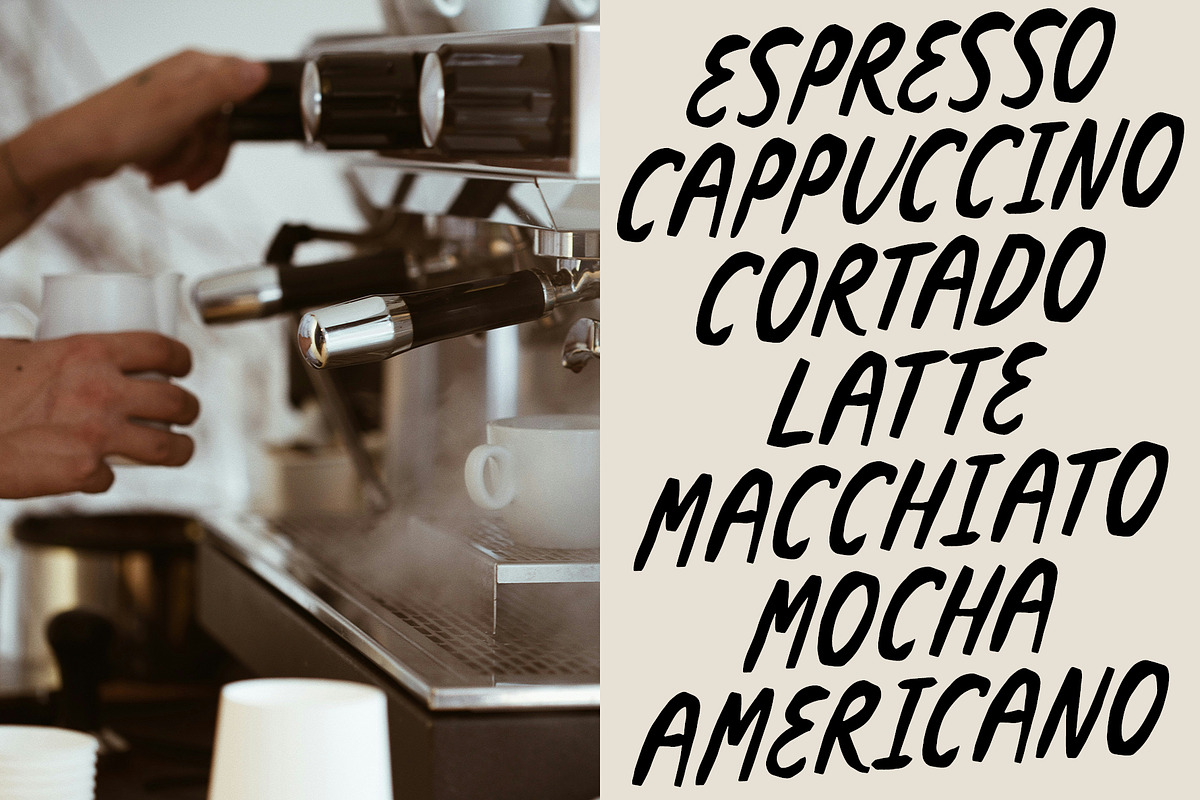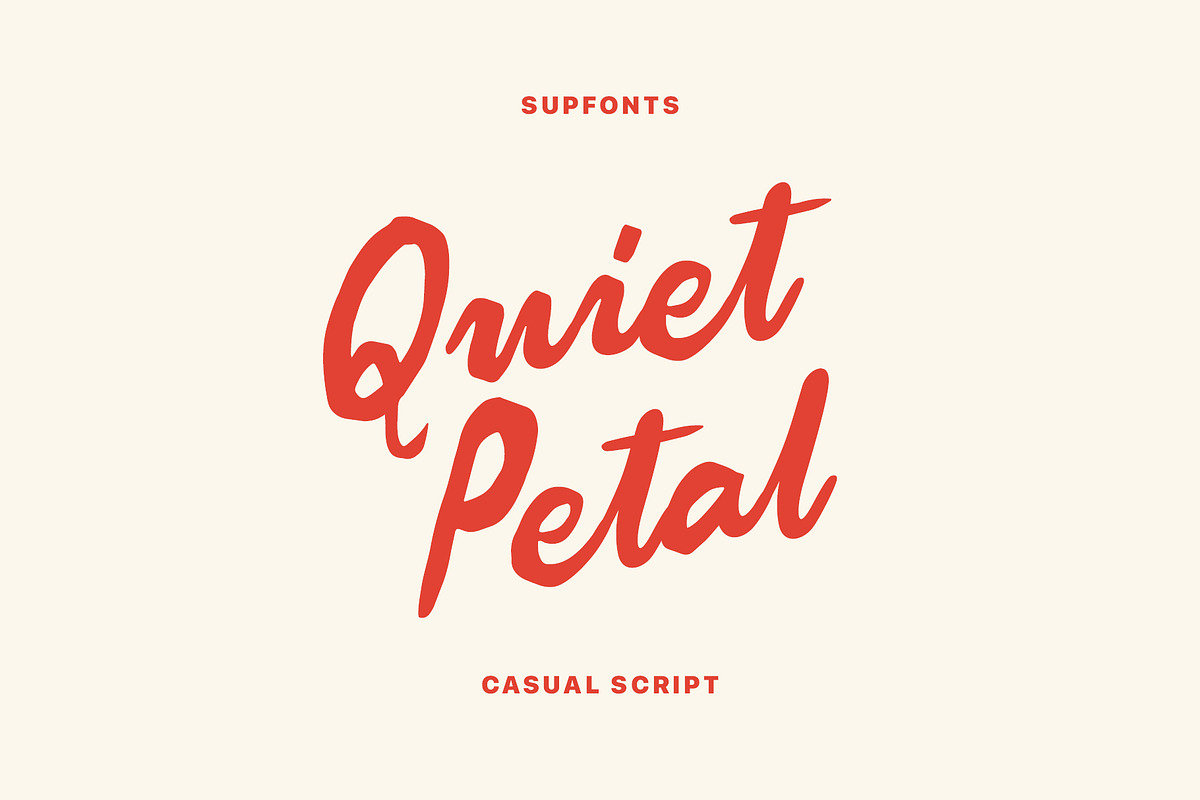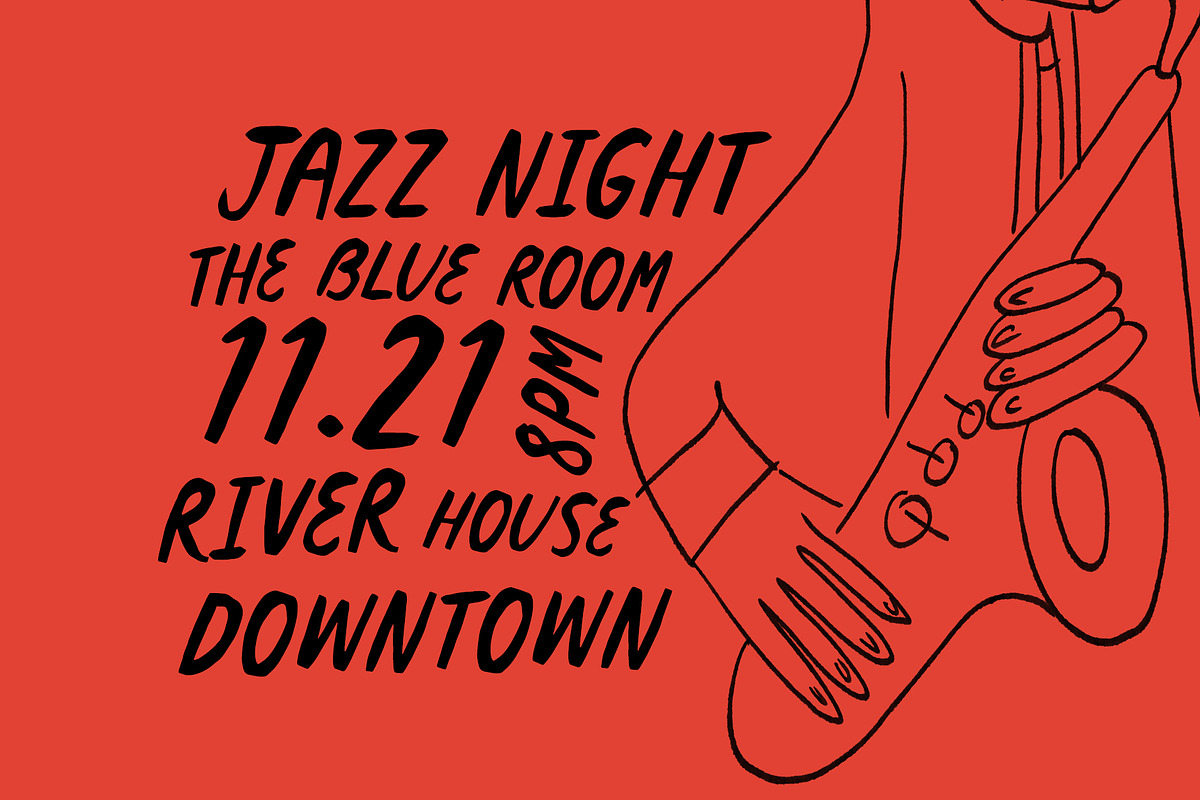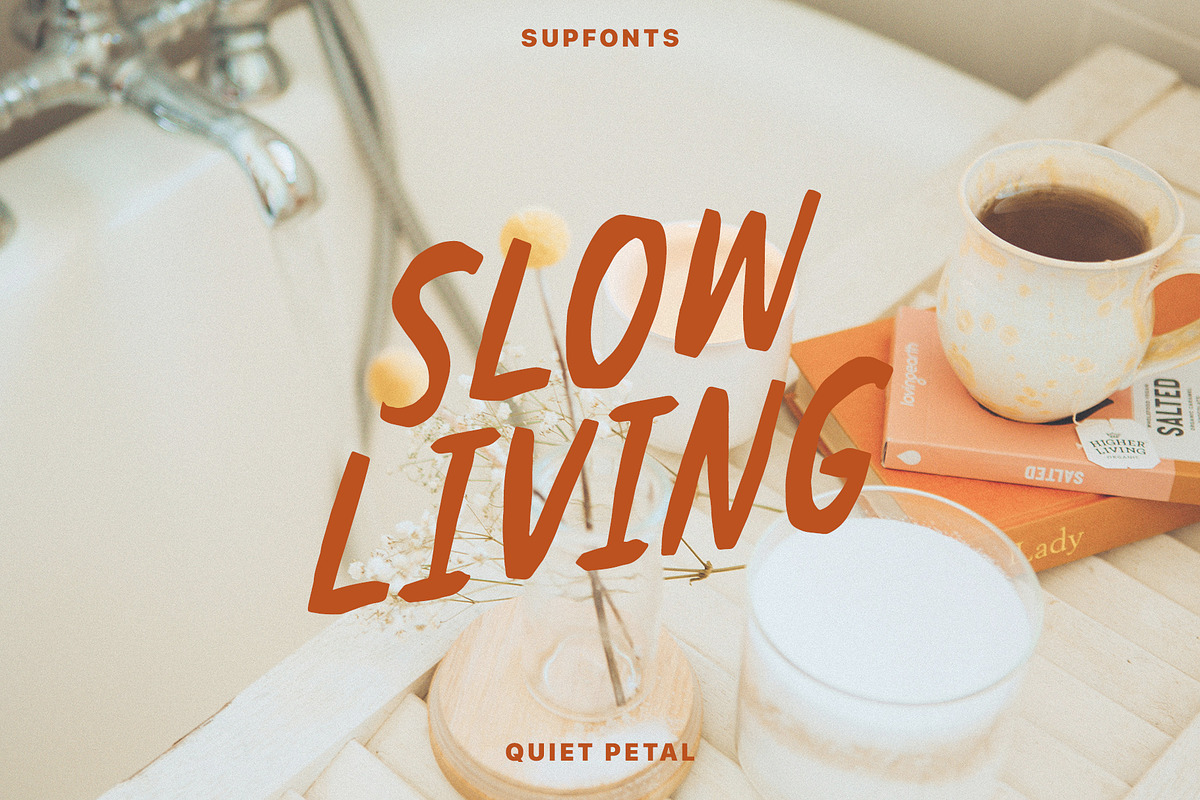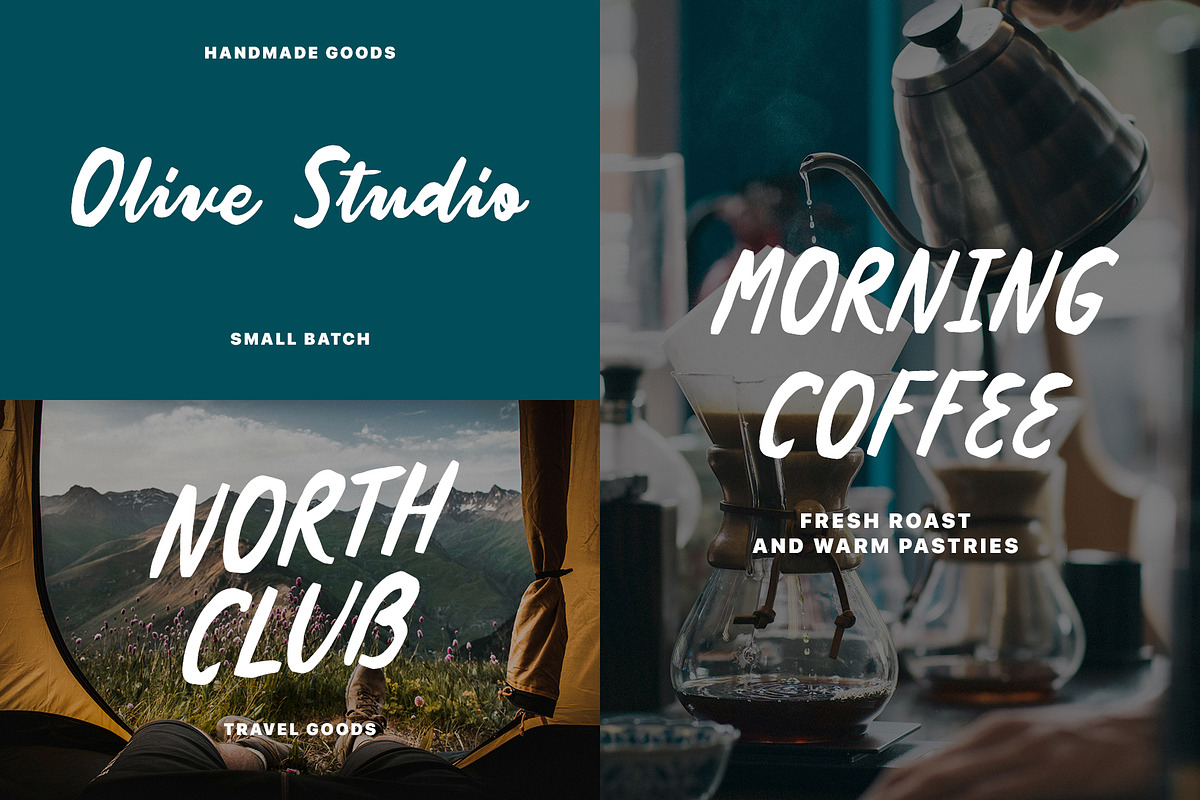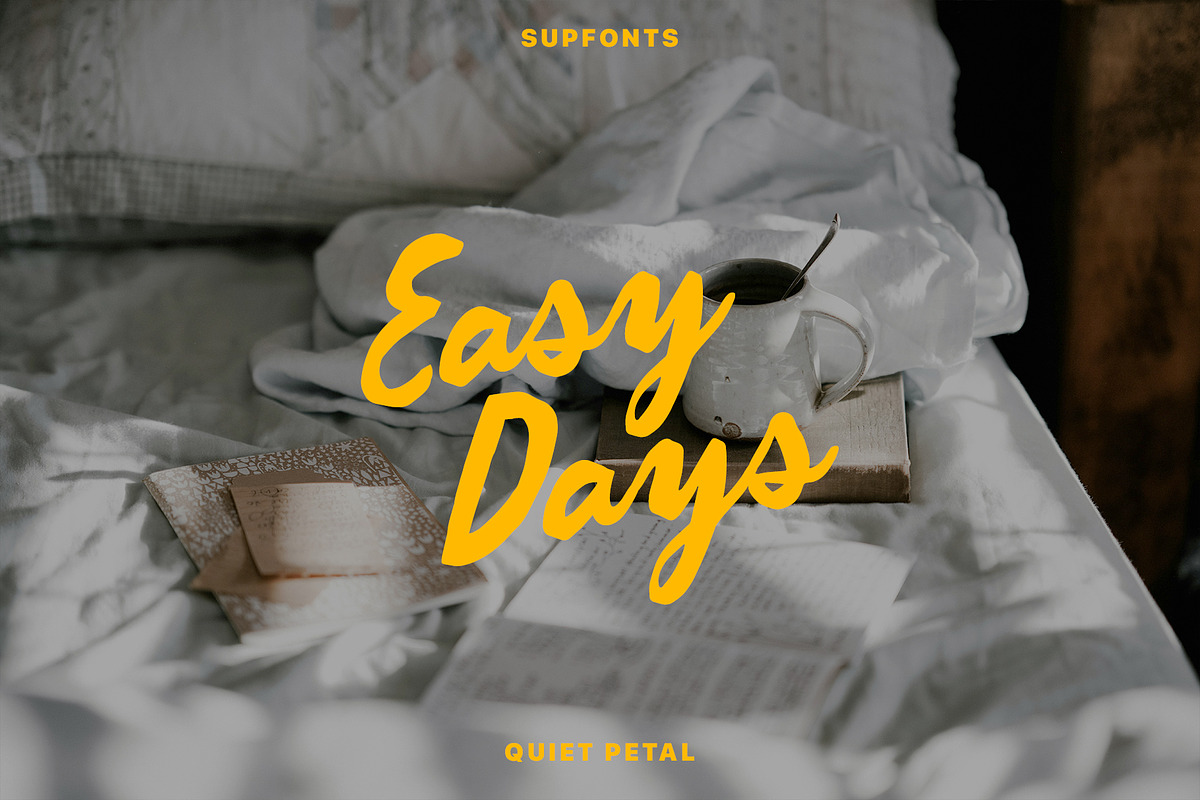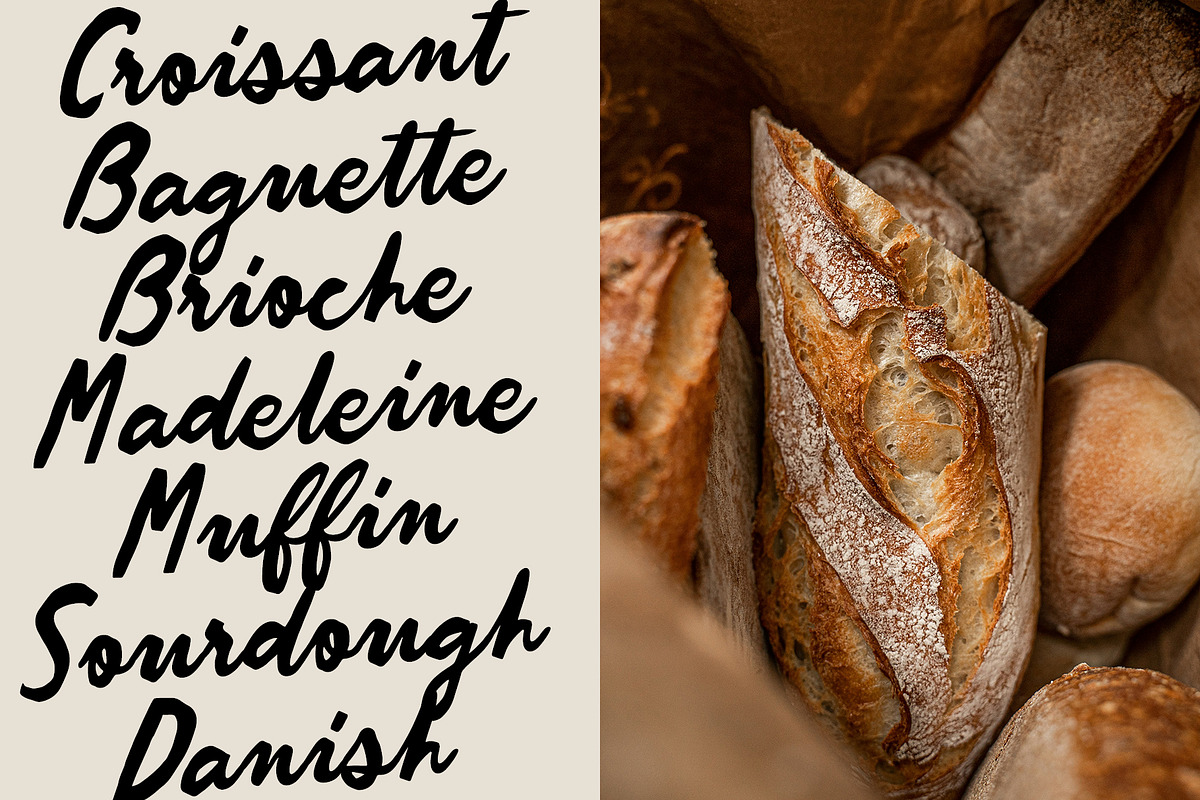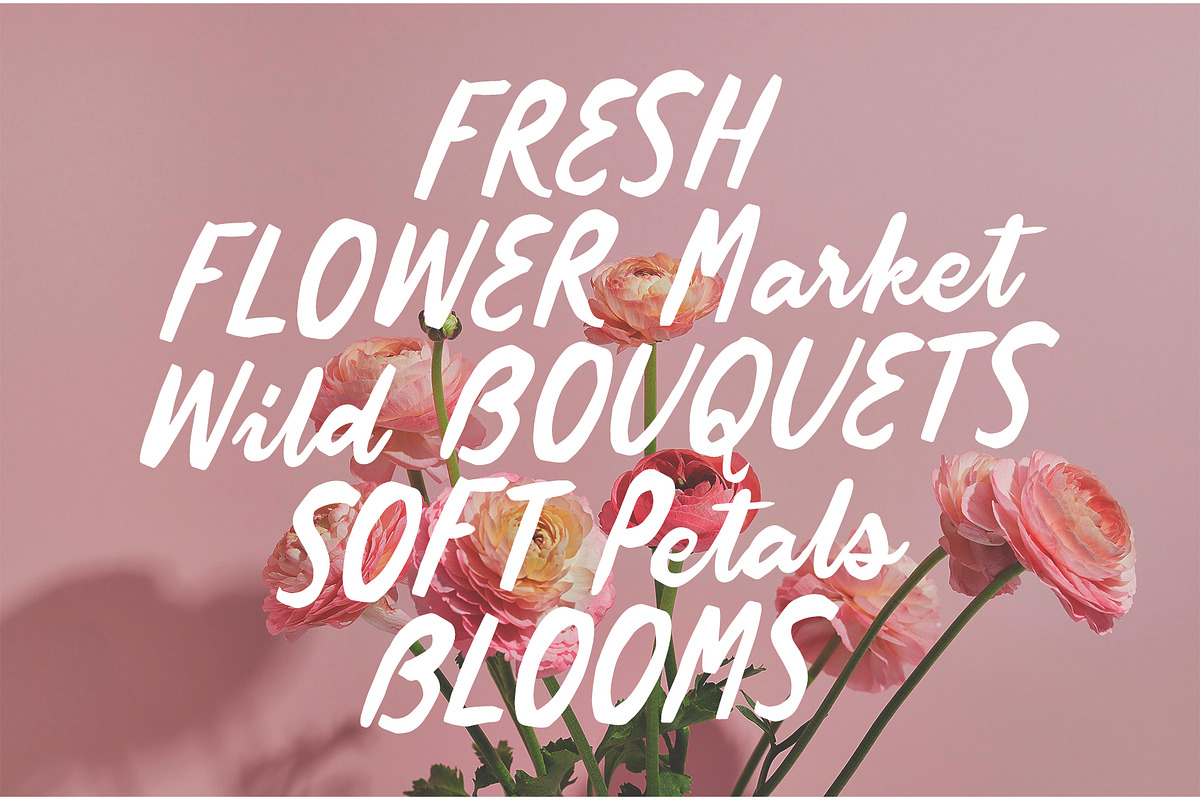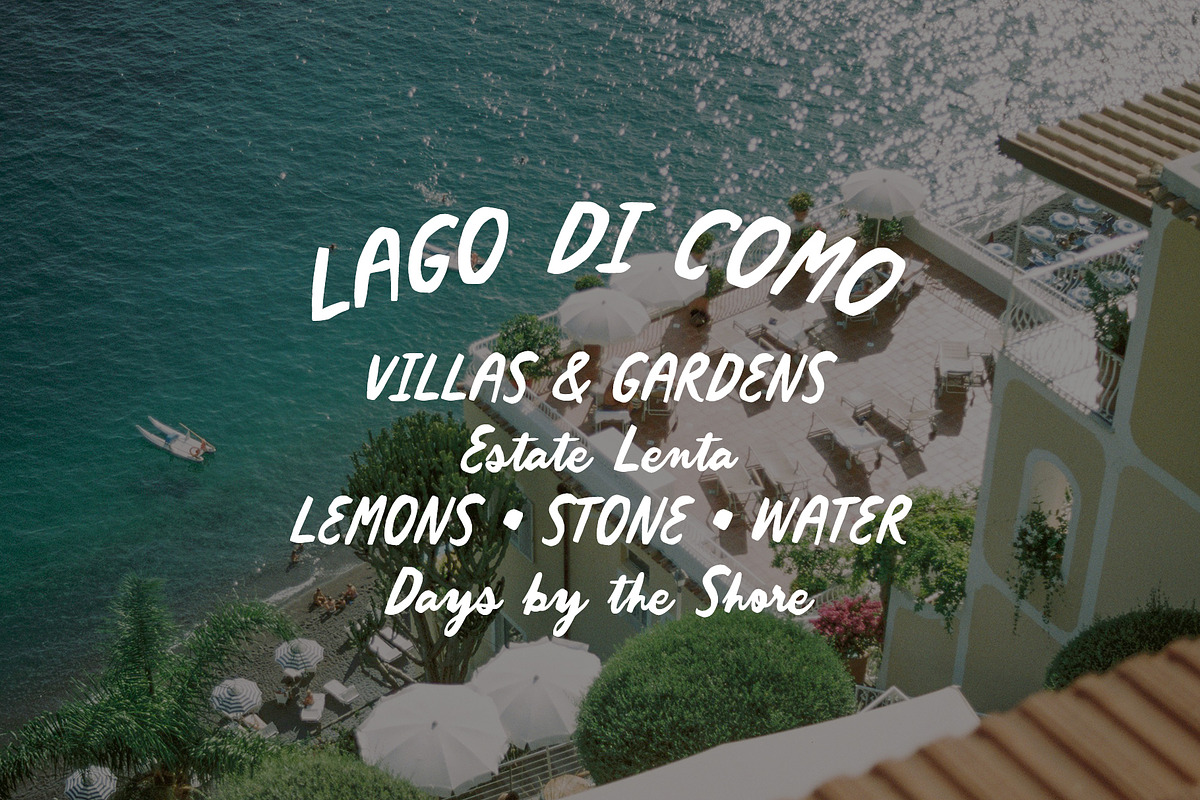
Quiet Petal Handwritten Script
Quiet Petal is a bold casual script font with a warm, handmade spirit and a naturally flowing rhythm. Designed to feel soft, expressive, and full of personality, it brings an effortless charm to any project without looking too polished or artificial. Its imperfect strokes and organic texture make it ideal for branding, packaging, posters, social media graphics, quotes, invitations, lifestyle products, beauty designs, café menus, floral concepts, and editorial layouts. Quiet Petal balances playfulness and clarity, so it feels eye-catching while staying easy to read. Whether you are creating a romantic visual identity, a cozy product label, or a stylish Instagram post, this font adds a friendly, natural, and human touch that instantly makes designs feel more alive.